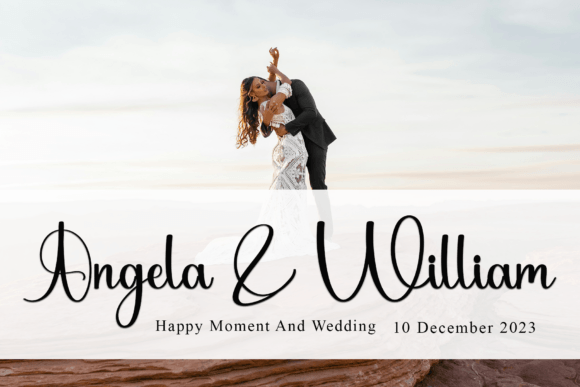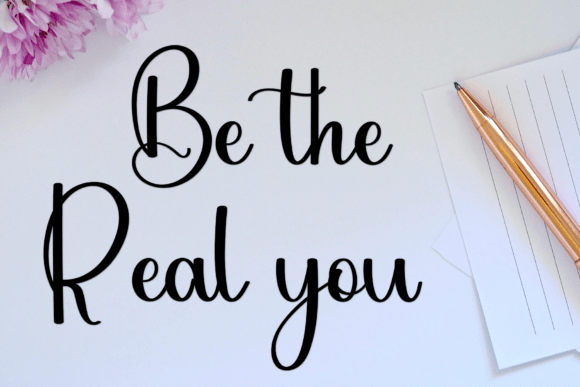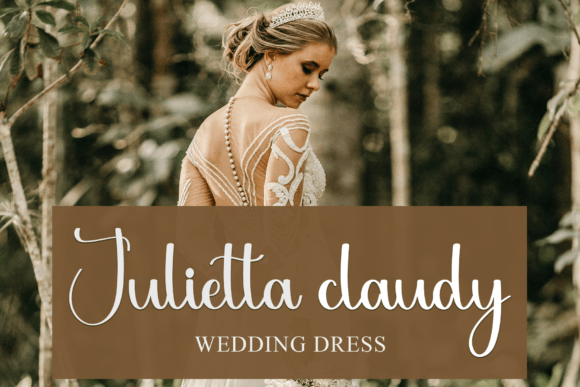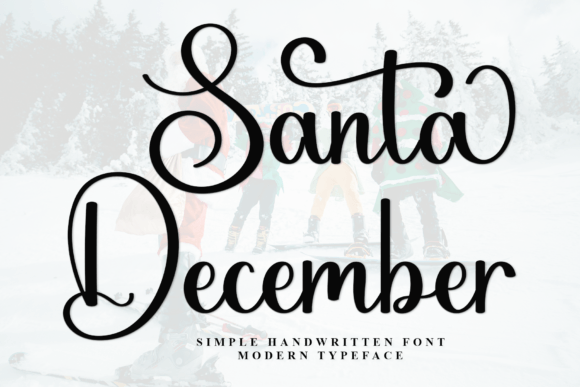
Introduction to Santa December Font
Santa December is a festive and merry typeface that captures the spirit of the holiday season.
With its decorative elements and whimsical flair, it adds a touch of enchantment to your designs Perfect for greeting cards, gift tags, and holiday-themed projects, this font brings a cheerful and nostalgic ambiance to your words.
Key Features of Santa December Font
Why Choose Santa December Font?
Santa December Font offers exceptional quality and versatility, making it a valuable addition to your design toolkit. Whether you’re creating for personal projects or commercial use, Santa December Font delivers professional results.